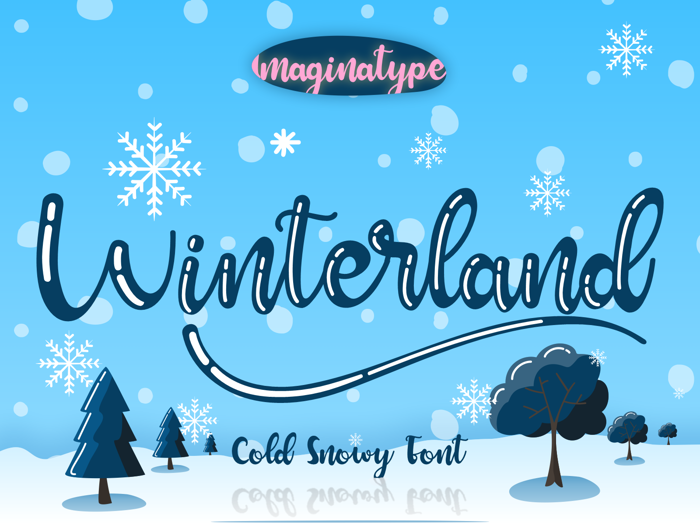
Winterland Font
Winterland Script Font is a snowy calligraphic typeface, cold and flowing. This type of font perfectly made to be applied especially in headlines which is need a standout font, and the other various formal forms. Its natural and unique style makes it incredibly fitting to a large pool of designs. The only limit is your imagination!